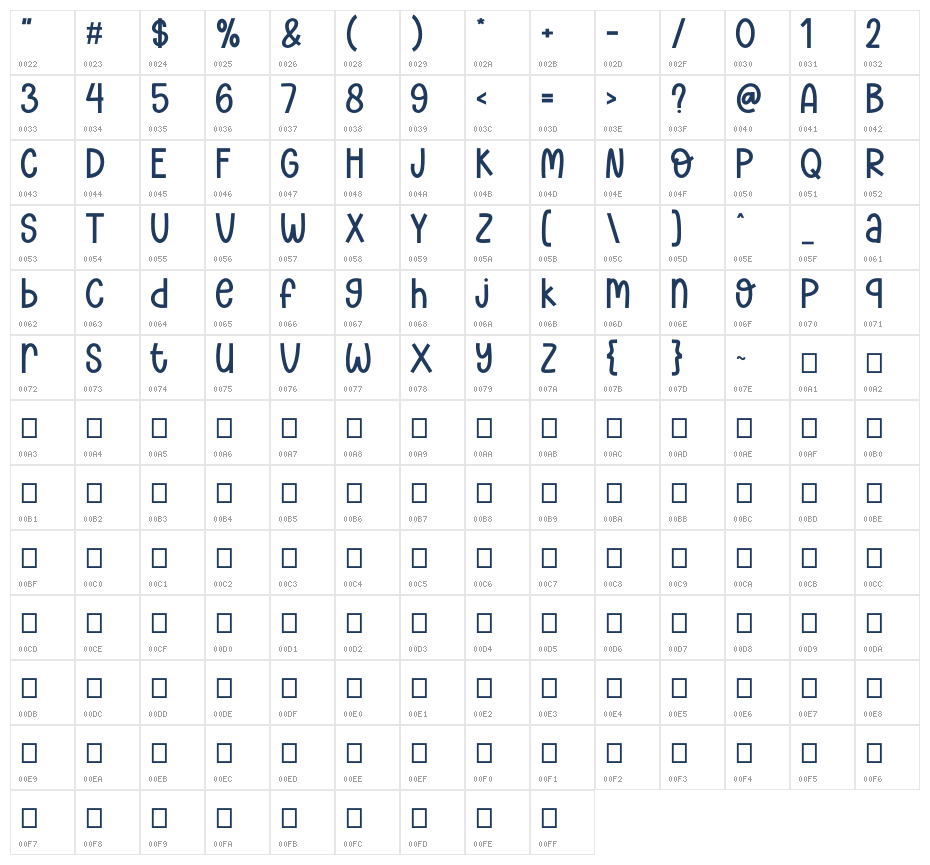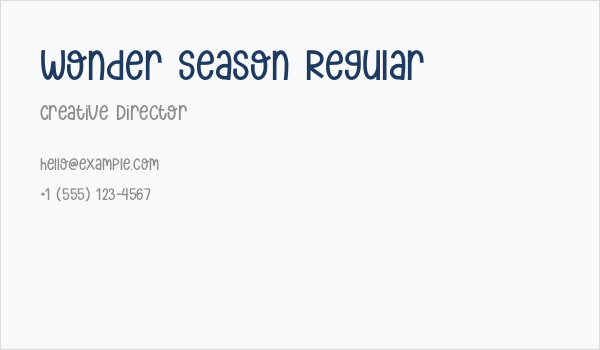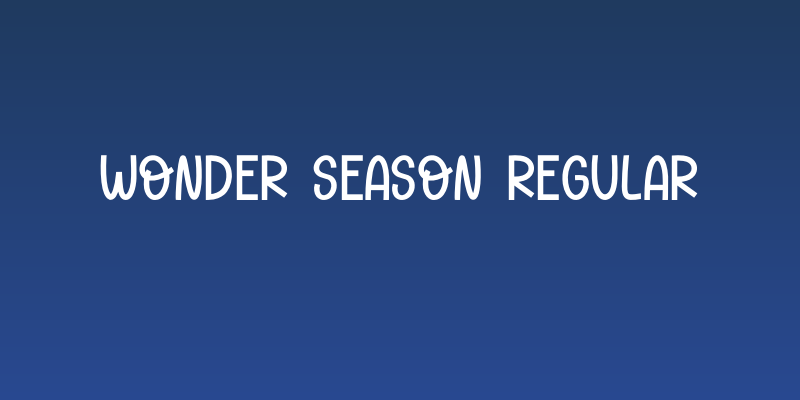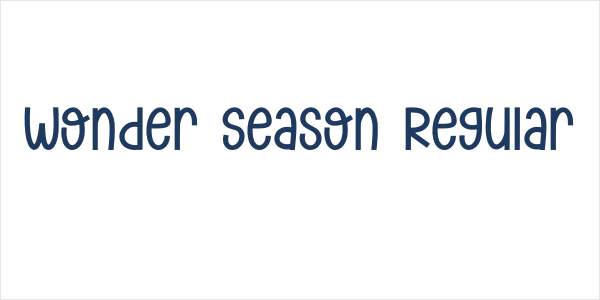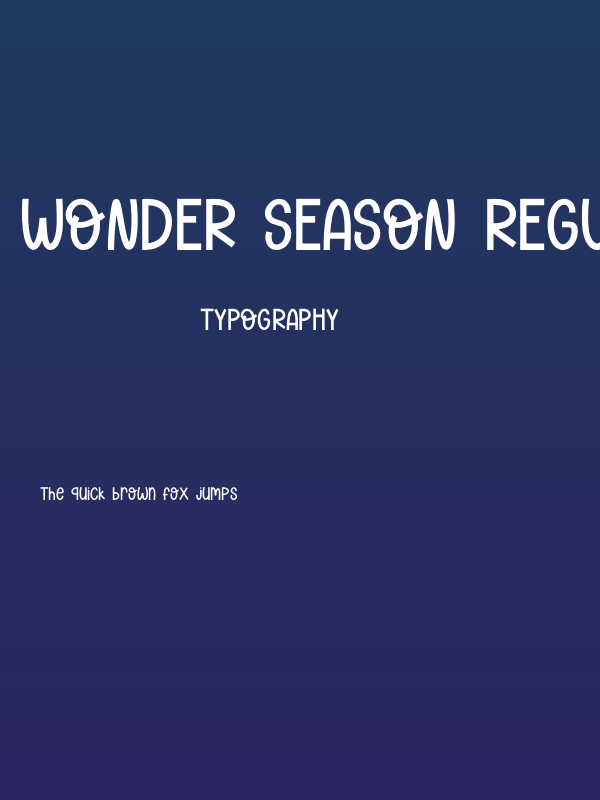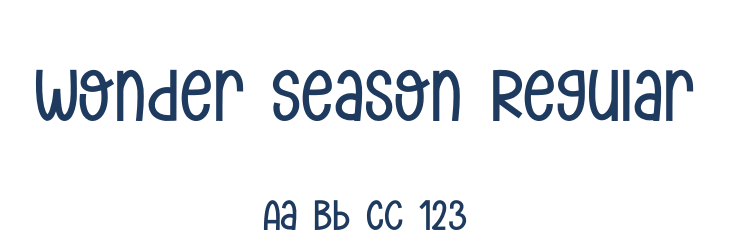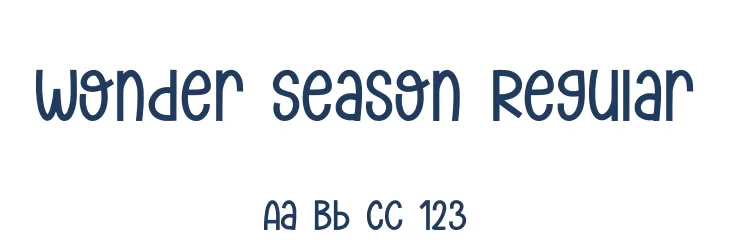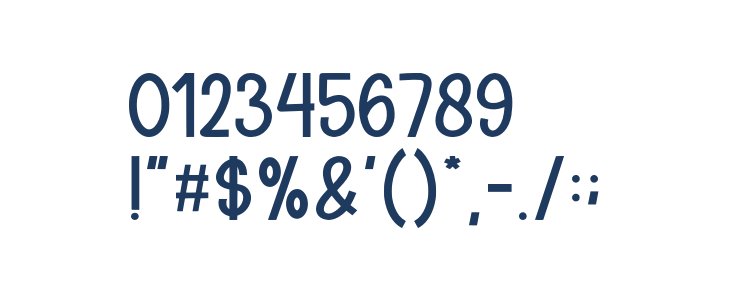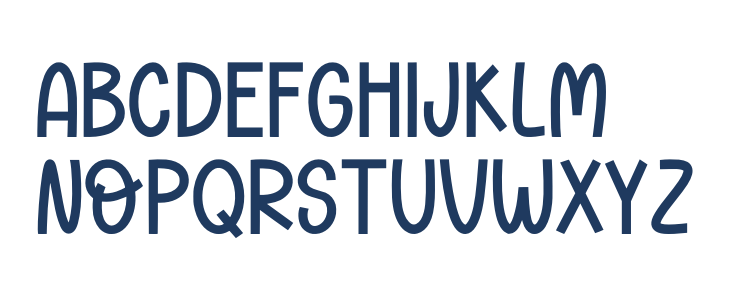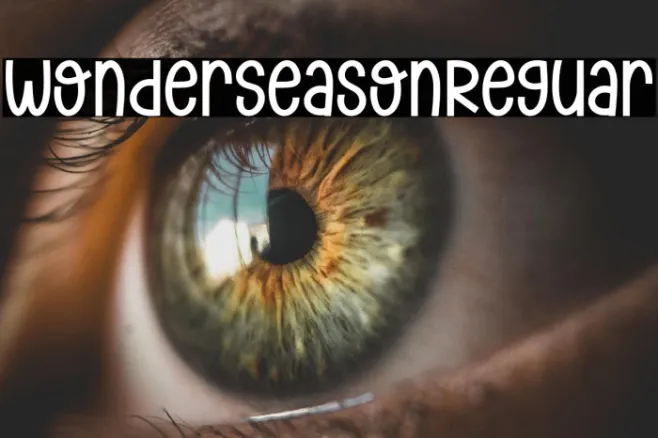
Wonder Season Regular Font
Wonder Season Regular Description
Playful, rounded, handwritten style font with a casual and friendly appearance.
| Overall Style | Casual, Friendly, Playful |